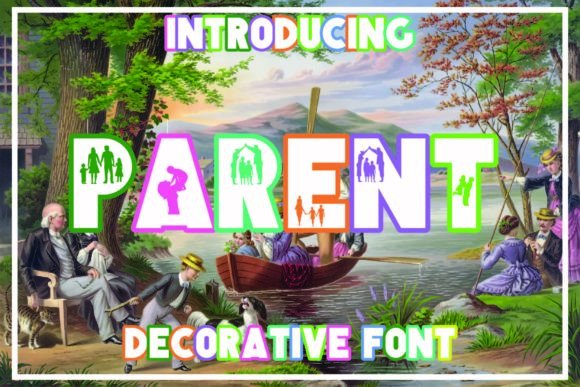
Introducing Parent Font - The Decorative Font Family That Captivates!
Adorn your designs with the charm of Parent Font, a remarkable decorative font family brimming with creativity and personality. Designed by the talented CHEETAH DOODLE, Parent Font is not just a collection of letters; it's a gateway to a world of captivating designs that leave a lasting impression.
With its bold, thick lettering and family-themed elements nestled within each character, Parent Font exudes warmth, playfulness, and a touch of nostalgia. Imagine the impact it will create on your posters, flyers, prints, and any other creative project you embark on.
Explore the Endless Possibilities of Parent Font:
1. Posters That Speak: Transform your posters into captivating works of art. Parent Font's bold presence commands attention, ensuring your message resonates with your audience. Whether it's a promotional poster, an event announcement, or a heartfelt family portrait, Parent Font adds a touch of magic that elevates your designs to new heights.
2. Flyers That Fly: Create flyers that soar above the ordinary. Parent Font's unique charm makes your flyers stand out from the crowd. Whether you're promoting a local event, a special offer, or a community gathering, Parent Font ensures your message reaches its intended audience with impact and style.
3. Prints That Preserve Memories: Capture life's precious moments with Parent Font's timeless appeal. Use it to create personalized prints that tell a story, evoke emotions, and preserve memories for generations to come. From family portraits to cherished quotes, Parent Font adds a touch of warmth and sentimentality to your printed treasures.
4. Designs That Delight: Unleash your creativity and explore the endless possibilities that Parent Font offers. Experiment with different colors, sizes, and arrangements to craft designs that reflect your unique style. Whether it's a social media post, a website banner, or a logo, Parent Font breathes life into your creations, making them truly unforgettable.
Parent Font - A Font Family That Inspires:
1. Ignite Your Imagination: Parent Font sparks a fire of creativity within you, inspiring you to think outside the box and create designs that captivate and engage. Its playful nature encourages you to experiment, explore new ideas, and push the boundaries of your imagination.
2. Create Meaningful Connections: Parent Font's family-themed design fosters a sense of togetherness and belonging. Use it to create designs that celebrate the bonds of family, friendship, and community. Your creations will resonate with audiences on a deeper level, leaving a lasting impact on their hearts and minds.
3. Make a Bold Statement: Parent Font's bold presence ensures your designs command attention. It's perfect for making a statement, whether you're creating a marketing campaign, promoting a brand, or simply expressing your individuality. Parent Font empowers you to make a statement that resonates and leaves a lasting impression.
4. Experience the Joy of Creativity: Parent Font is more than just a font; it's a catalyst for joy and creative expression. Using it feels like embarking on a playful adventure, where every design is a new opportunity to explore, discover, and delight in the beauty of creativity.